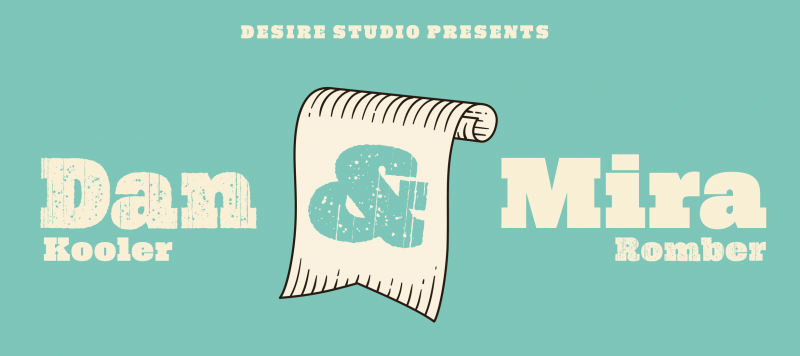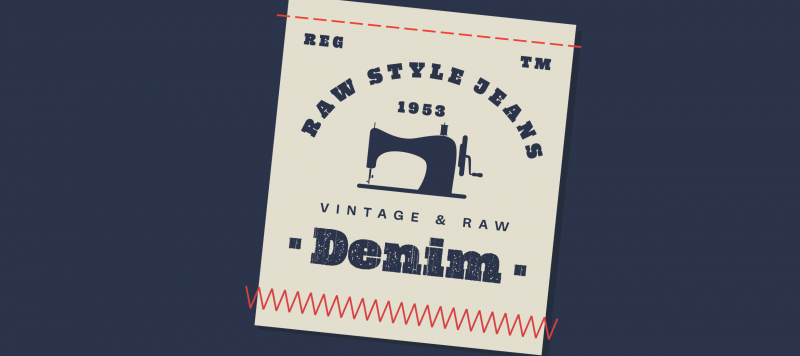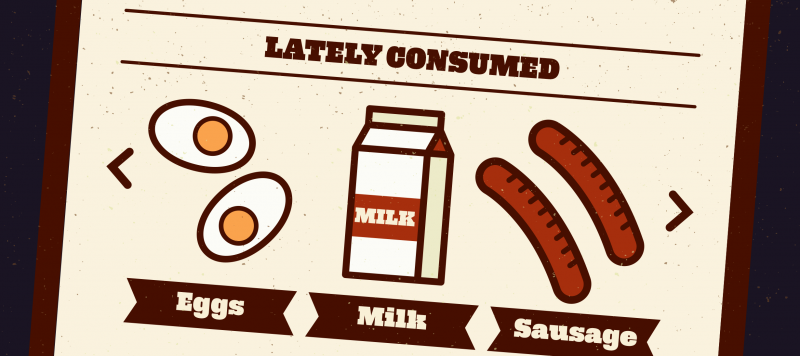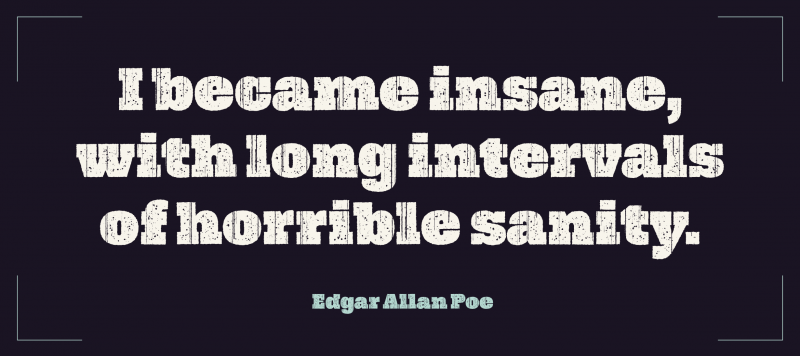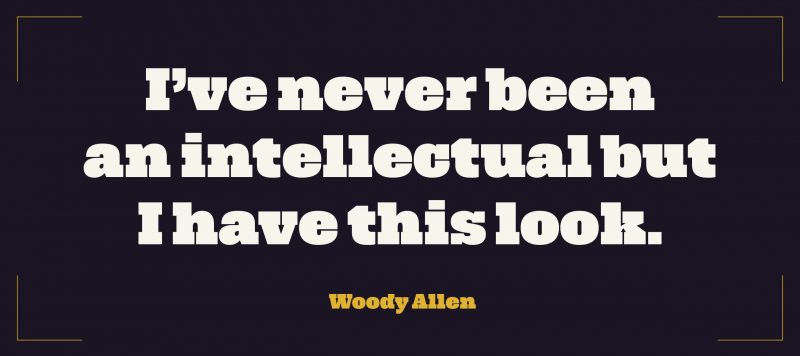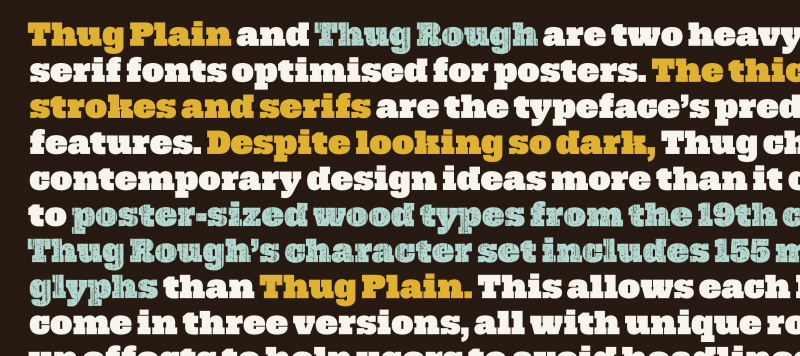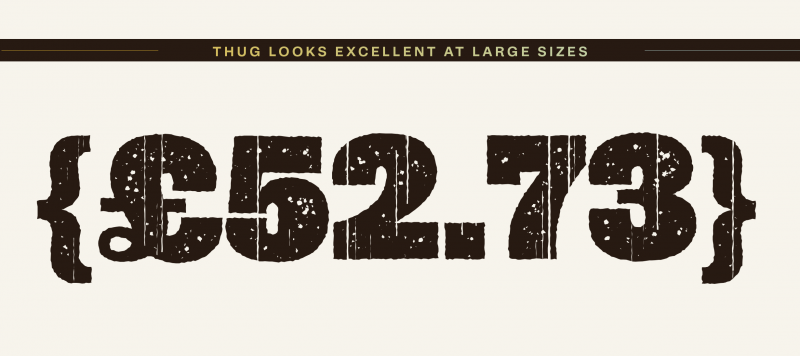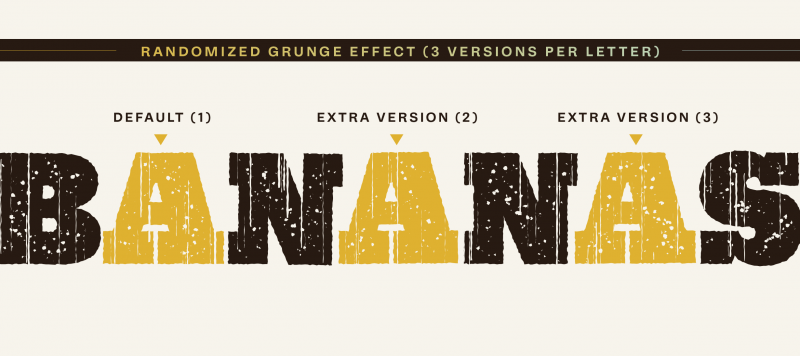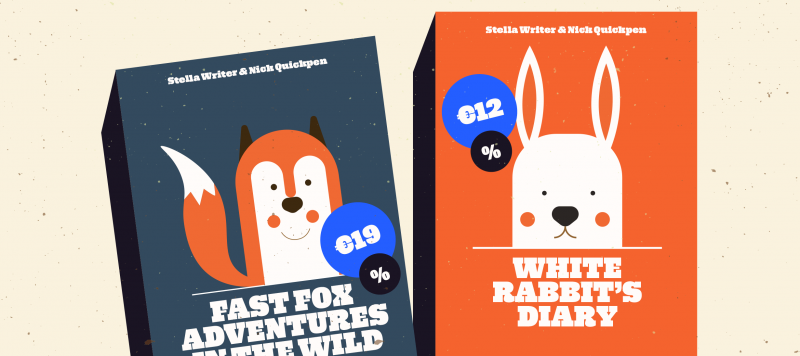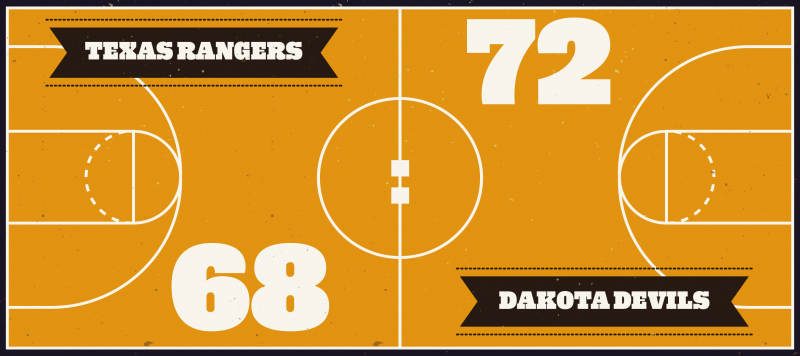
Thug Plain and Thug Rough are two heavy slab serif fonts optimised for posters. The thick strokes and serifs are the typeface’s predominate features. Despite looking so dark, Thug channels contemporary design ideas more than it calls back to poster-sized wood types from the 19th century. Thug Rough’s character set includes 155 more glyphs that Thug Plain. This allows each letter to come in three versions, all with unique roughed-up effects to help users to avoid headlines where identical letters appear closely together.
Family Name Thug
Designer(s) Jérémie Hornus
Release Date July 18, 2016
Available Style Plain, Rough
Classification Display, Slab